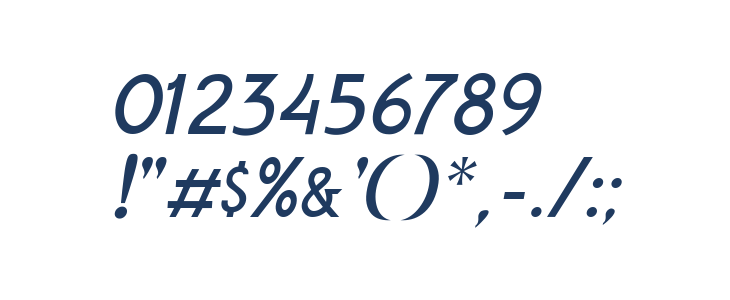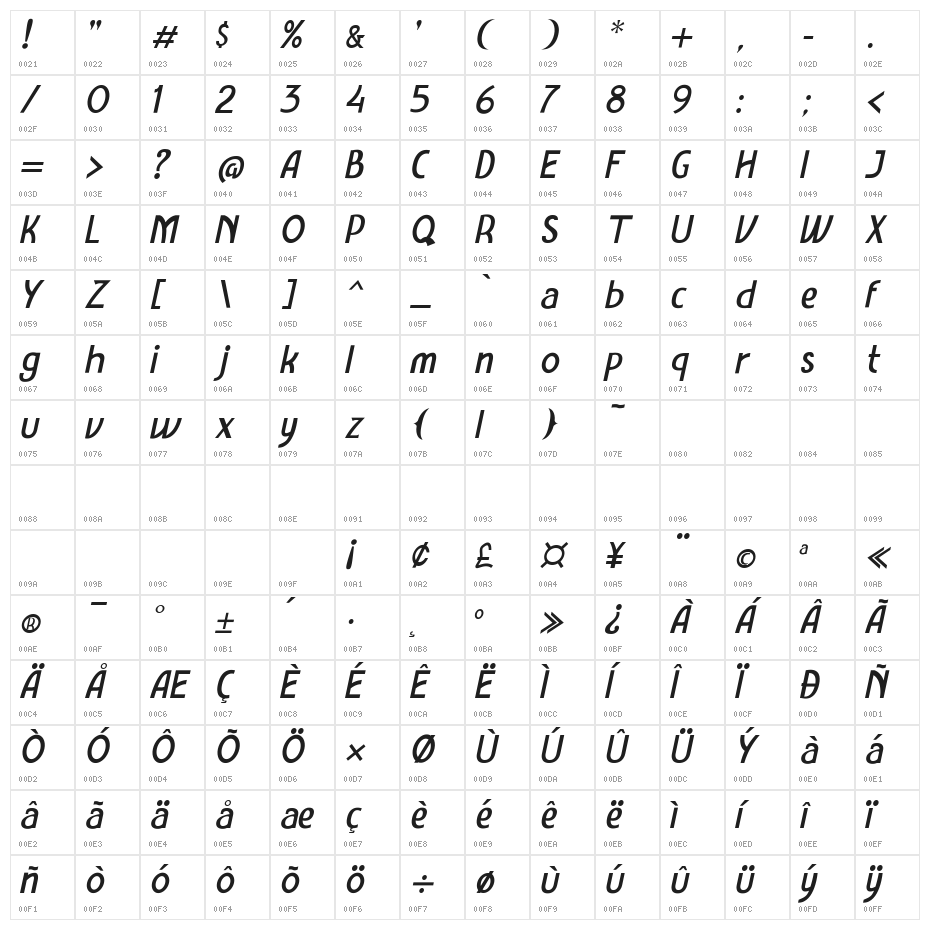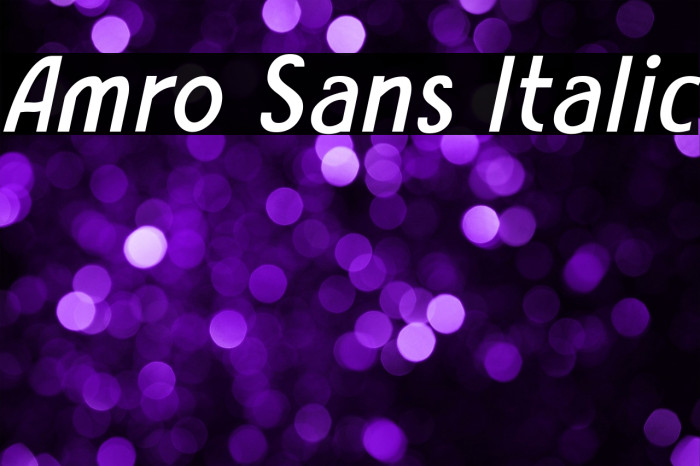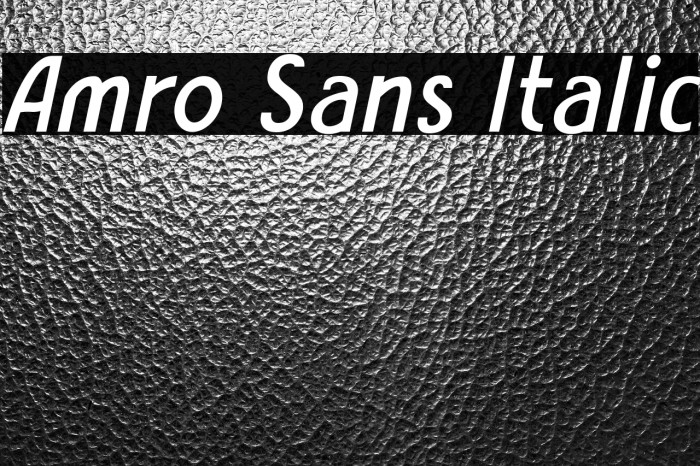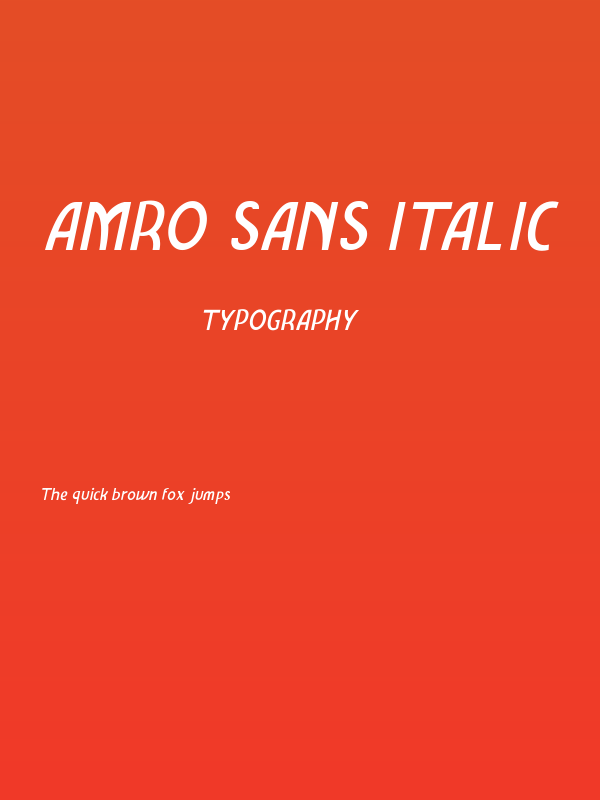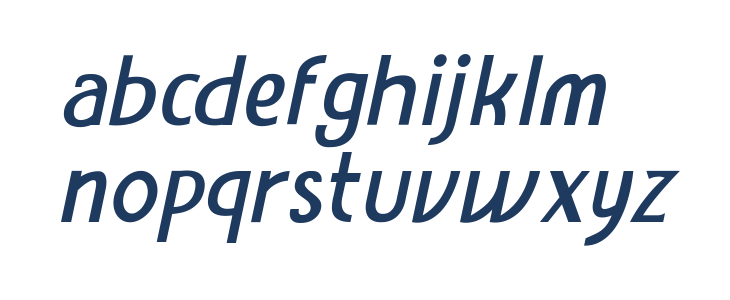
Amro Sans Italic Font
Amro Sans Italic Description
This font features a sleek and modern sans-serif design with a distinct italic slant, giving it a dynamic and forward-moving appearance. The characters are well-proportioned with a slight curvature that adds a touch of elegance. The uppercase letters are bold and assertive, while the lowercase letters maintain a consistent flow, enhancing readability. Numerals are clear and distinct, making them suitable for various applications. The special characters are designed with the same attention to detail, ensuring uniformity across the font. This typeface is versatile, suitable for both digital and print media.
| Proposed Projects | Ideal for branding, advertising, digital media, and editorial design projects. |